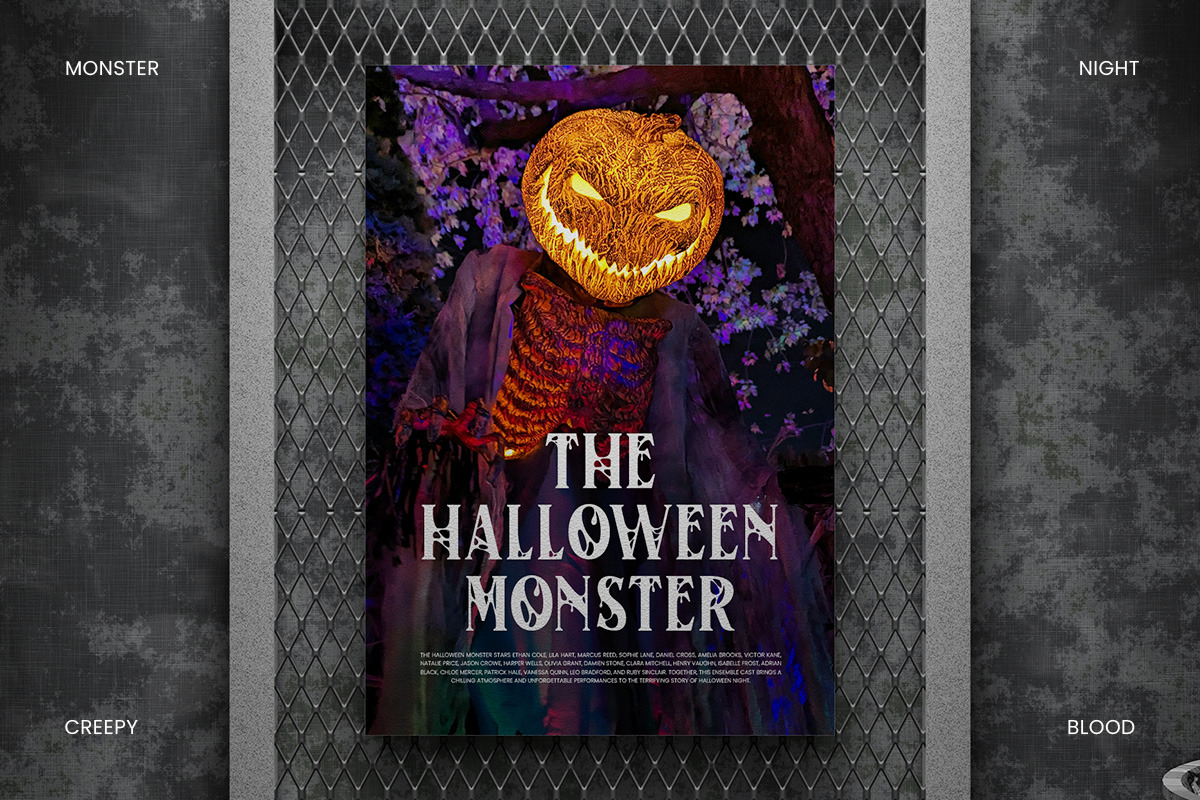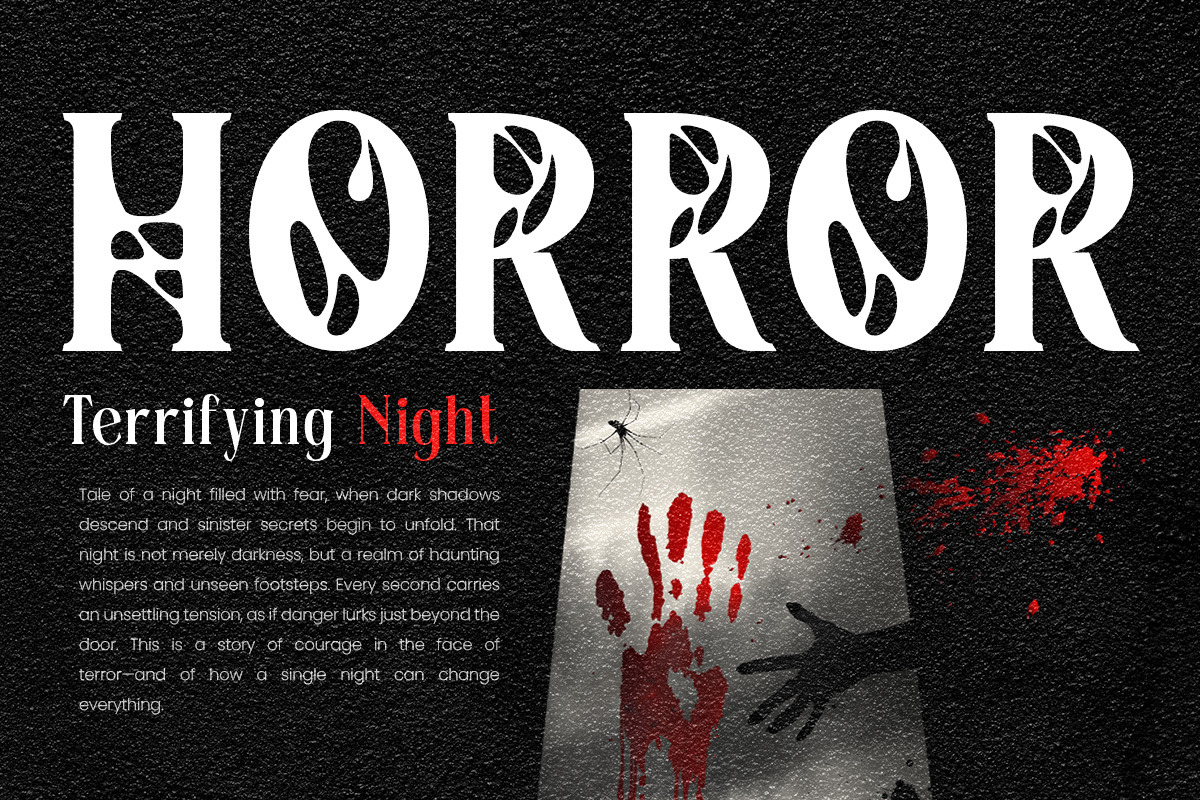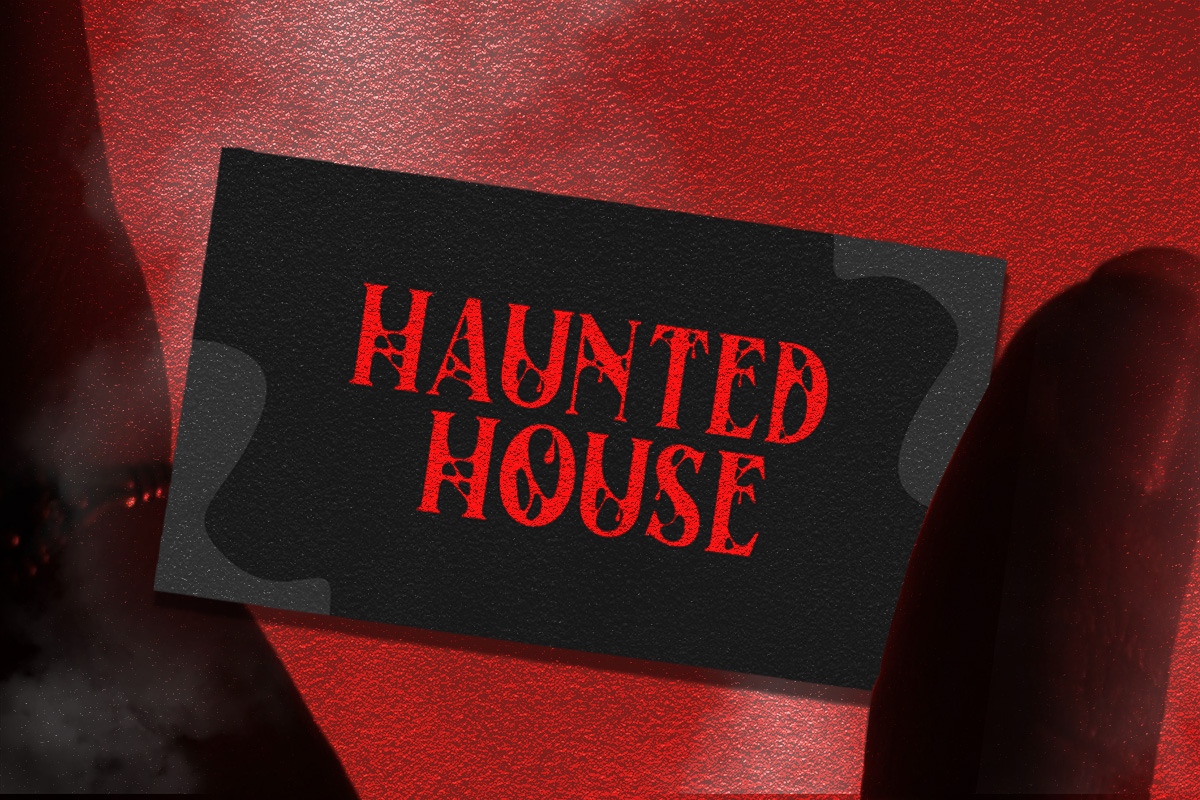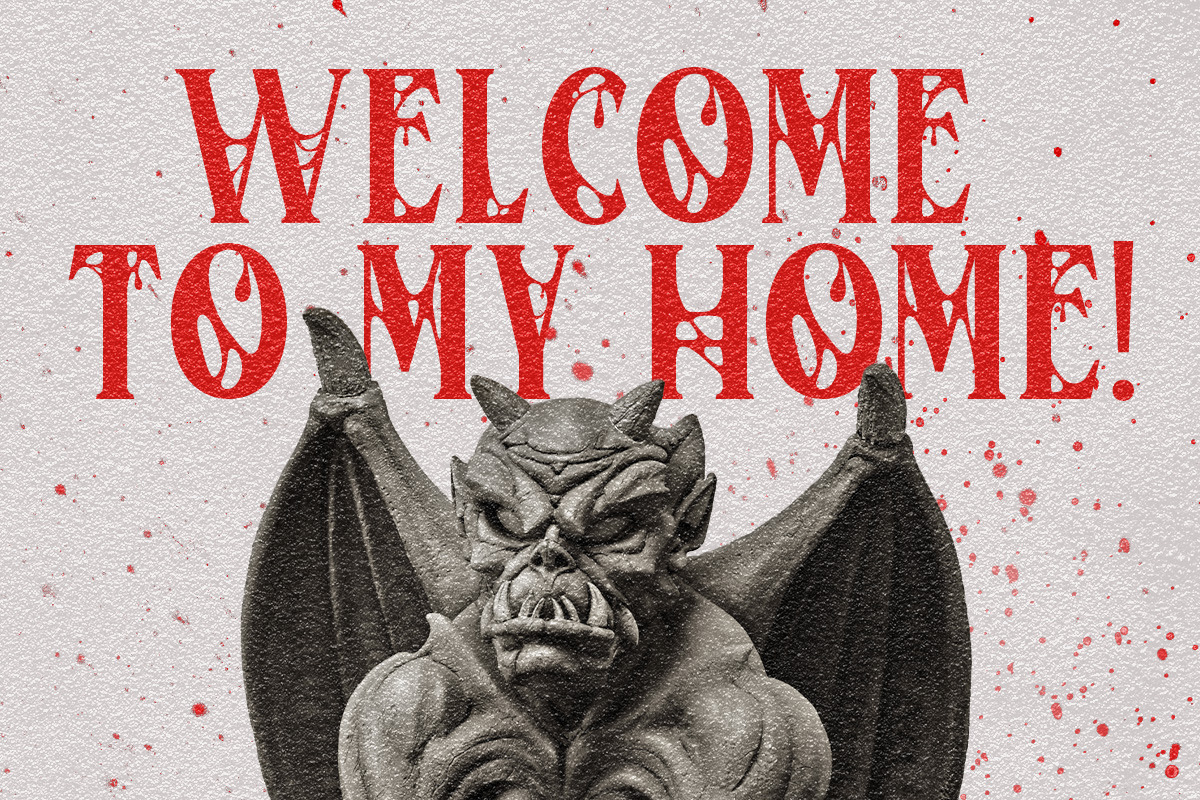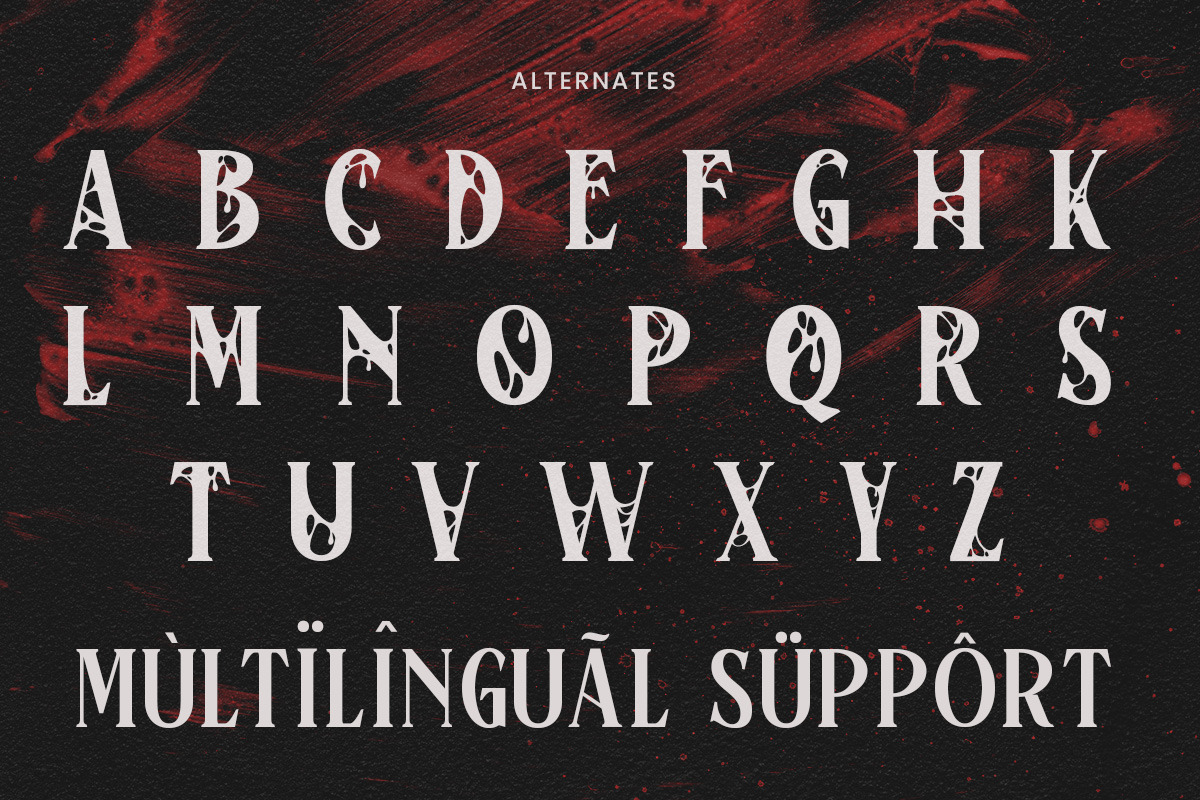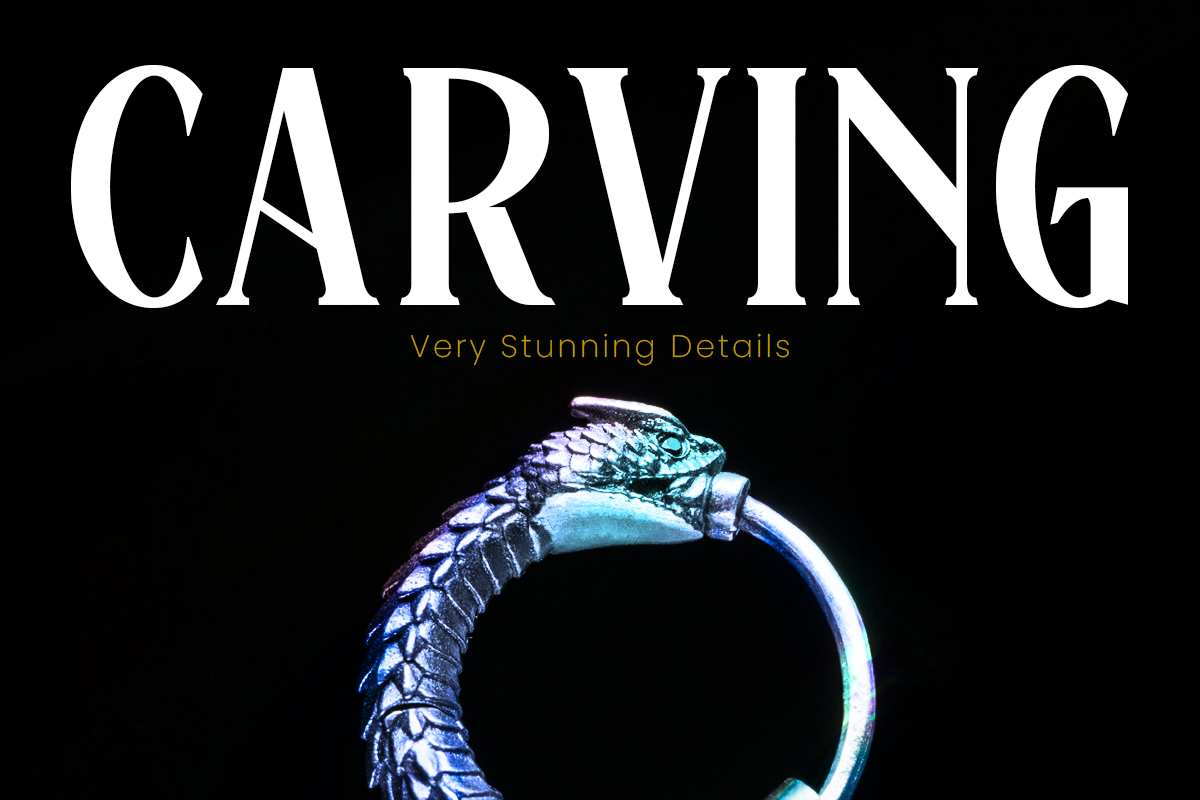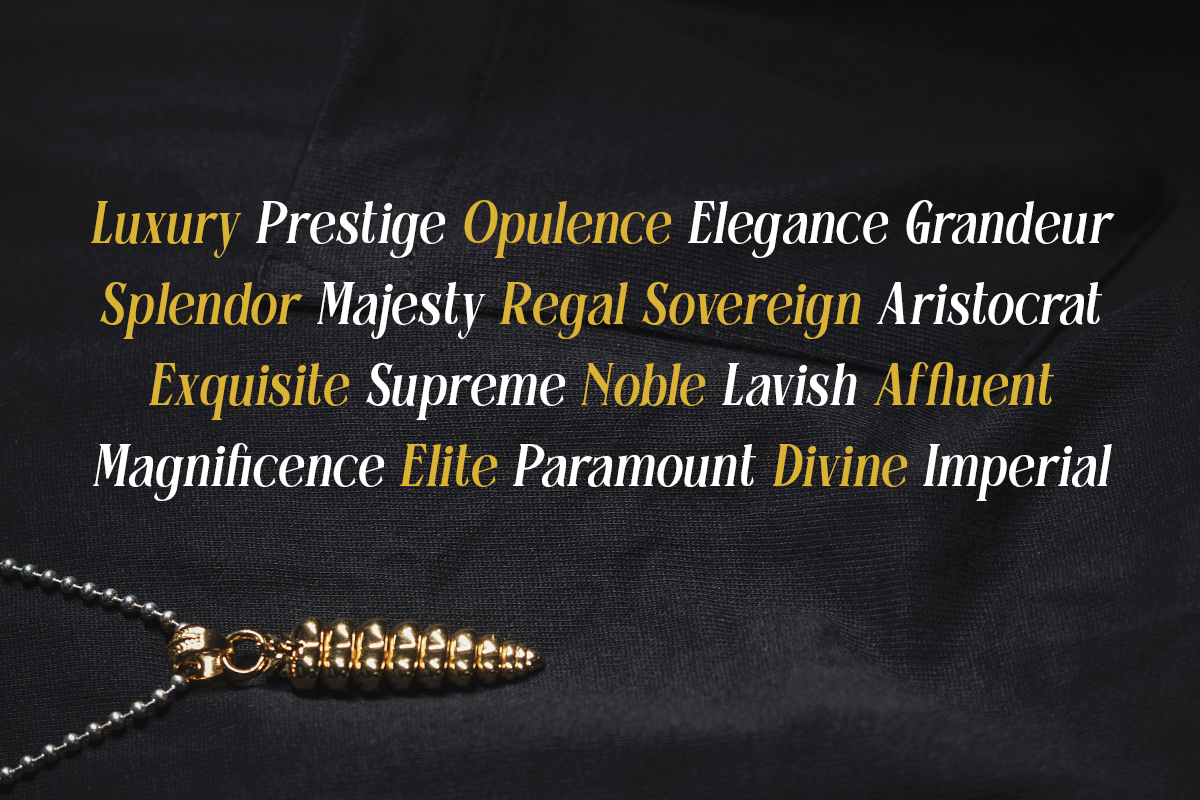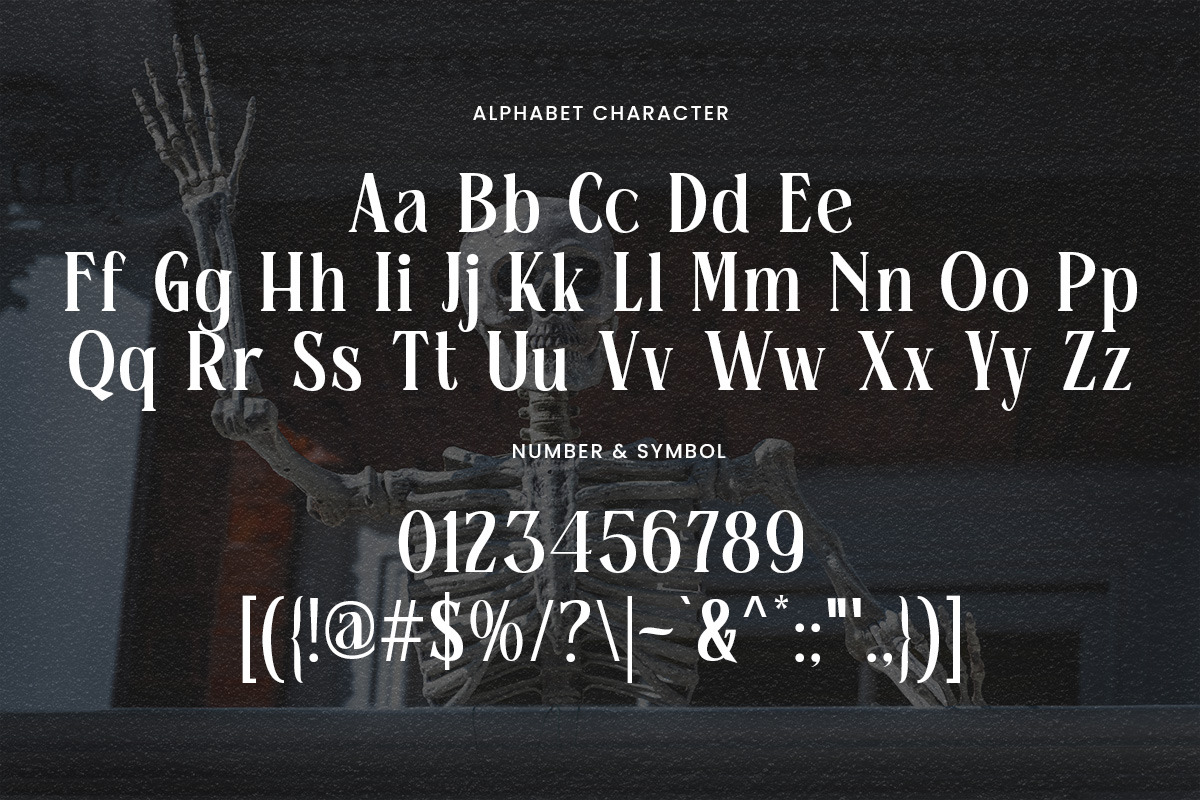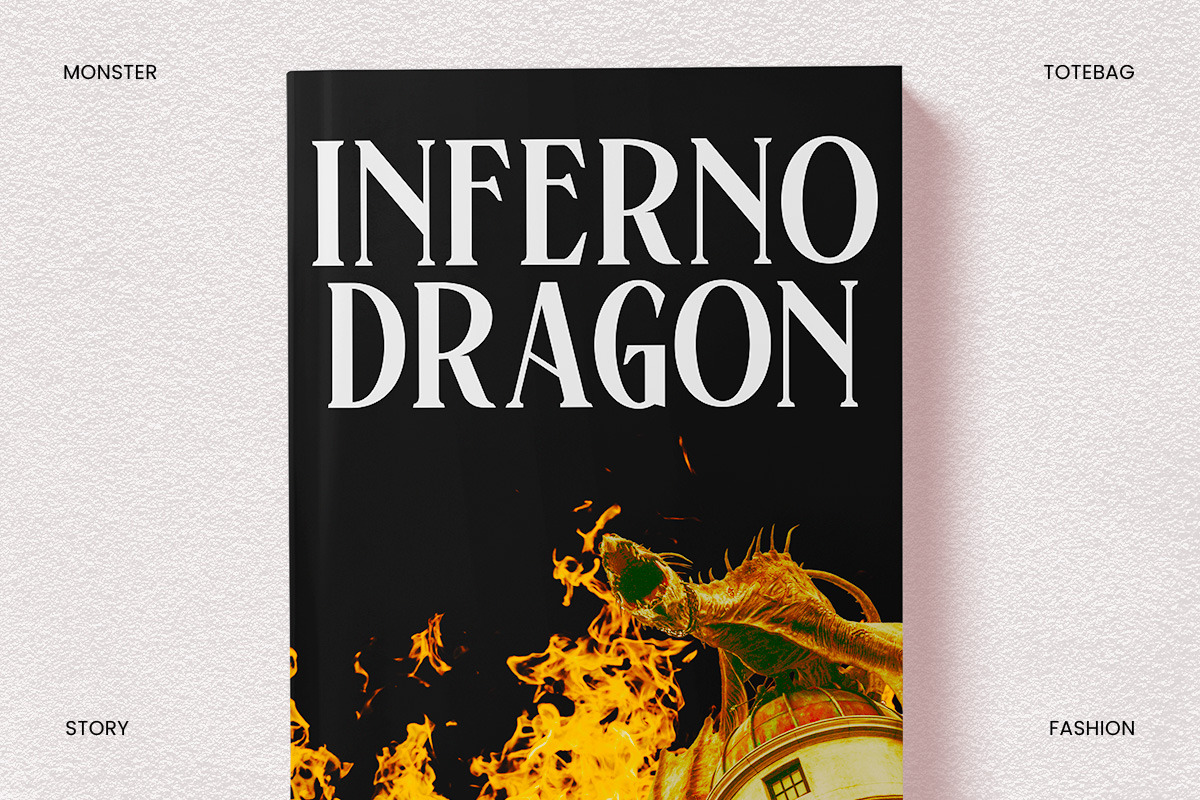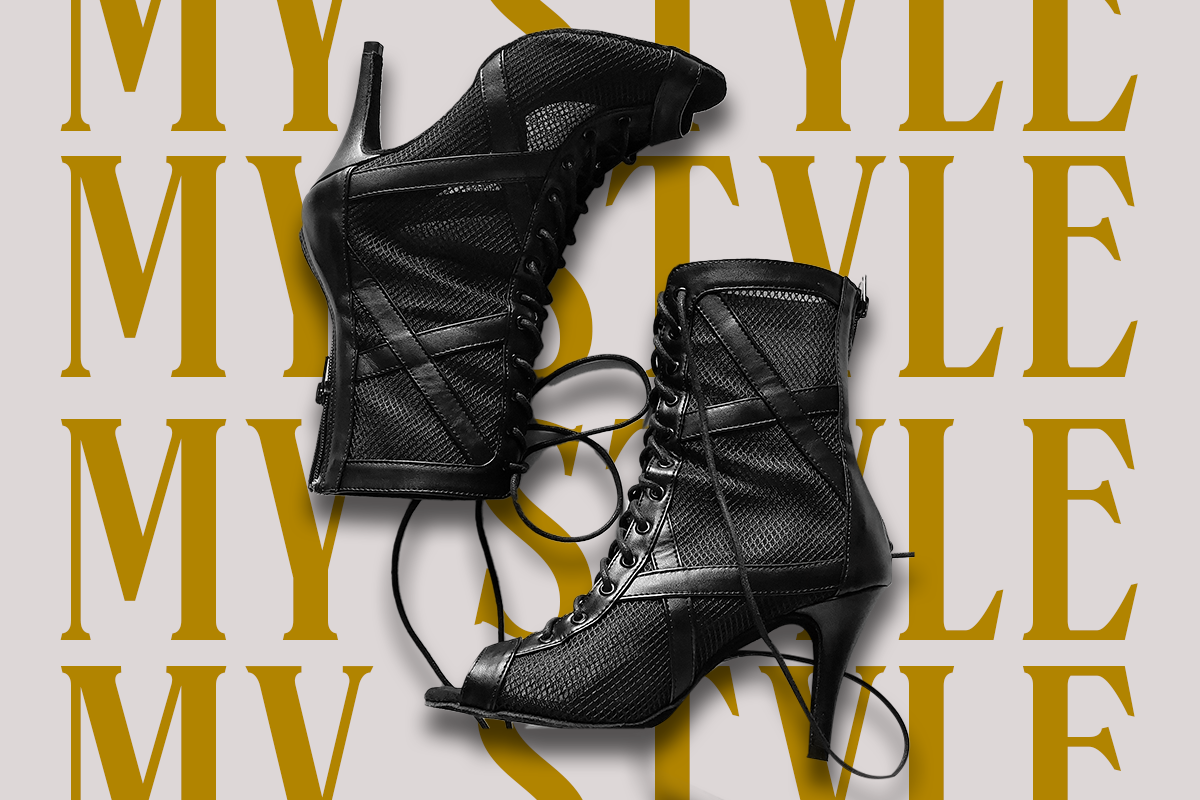
Hollow Thriller – Spooky Halloween
Hollow Thriller is a bold spooky display font that brings instant Halloween vibes with its eerie and dramatic letterforms. Inspired by horror classics, it blends mystery, fear, and bold expression in every curve. The font is carefully crafted with sharp edges, unique cutouts, and balanced kerning to give your designs a chilling yet professional look. Perfect for Halloween posters, party invitations, horror titles, packaging, social media graphics, and more. Add Hollow Thriller to your collection today and set a dark, unforgettable mood in your designs!